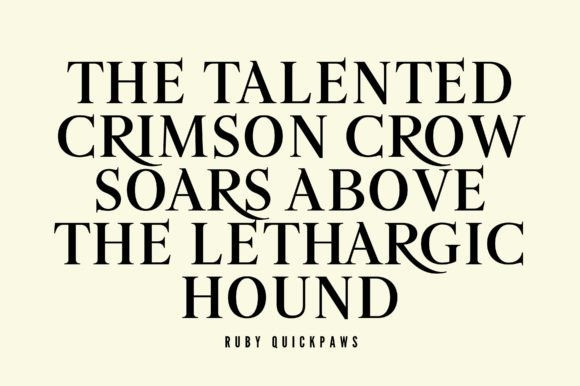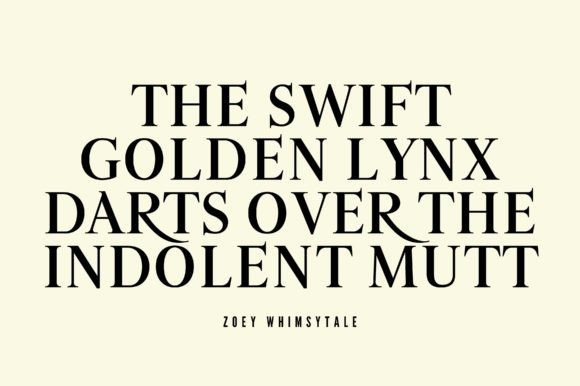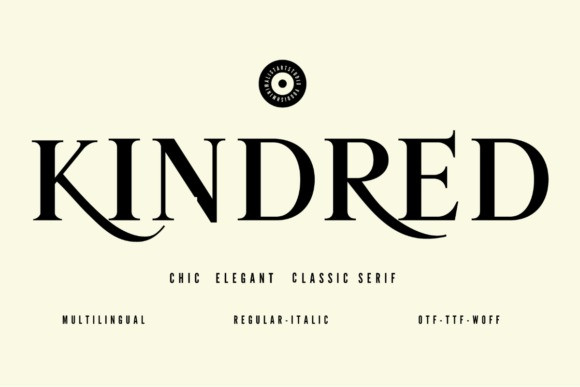
KINDRED FONT
Kindred Font is a classic serif typeface that blends timeless elegance with delicate sophistication. With meticulously crafted letterforms, graceful serifs, and versatile styles, it’s perfect for projects seeking a touch of class. Whether you’re working on invitations, branding, or editorial design, Kindred adapts effortlessly. Its precision kerning and adaptability to various design elements make it a top choice for both contemporary and vintage aesthetics. “Kindred” is your key to creating designs that leave a lasting impression of timeless beauty and refinement. Explore the art of typography and elevate your projects with Kindred today!